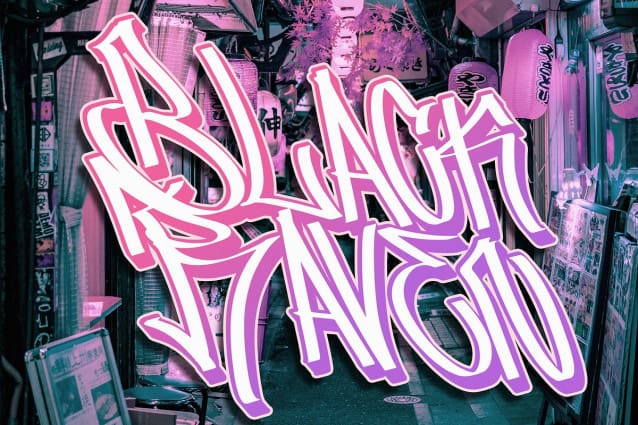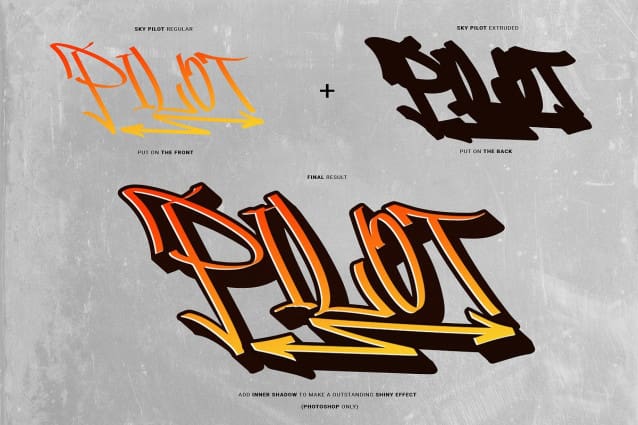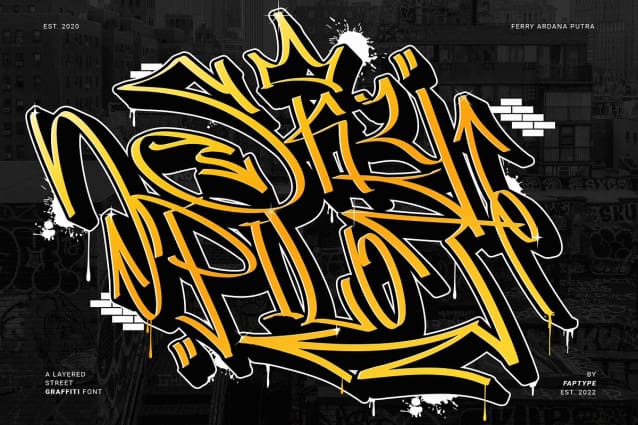
Skypilot Graffiti Font
Skypilot Graffiti Font. This font is carefully selected from hundreds of letters. We manually created this font using a flat pen and make it as close as possible to street graffiti style. Not only that, we also make another typeface that is perfectly suited for this theme, Skypilot extruded! With those fonts, you can combine them as a pair to make them a layered style! You will make exquisite real street graffiti art just like on the wall that you saw in the city! Besides all this, the Skypilot Swashes and ornaments are designed to customize your designs to be more fun as hell!